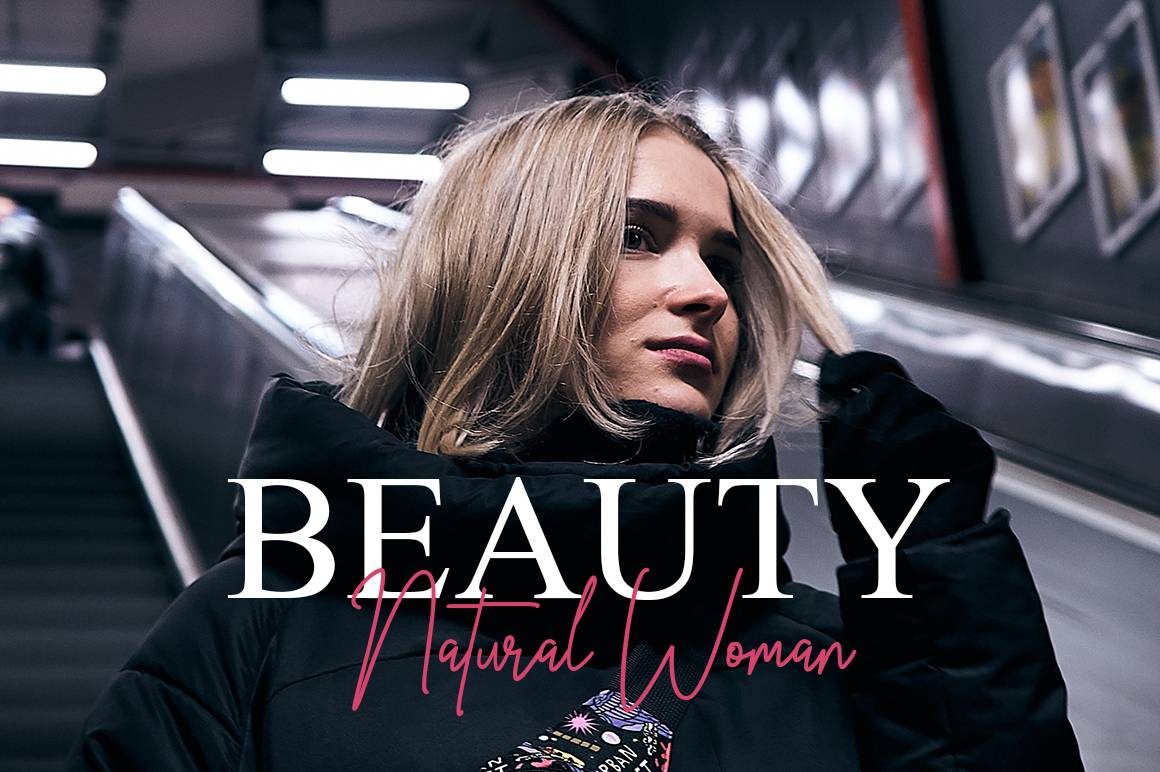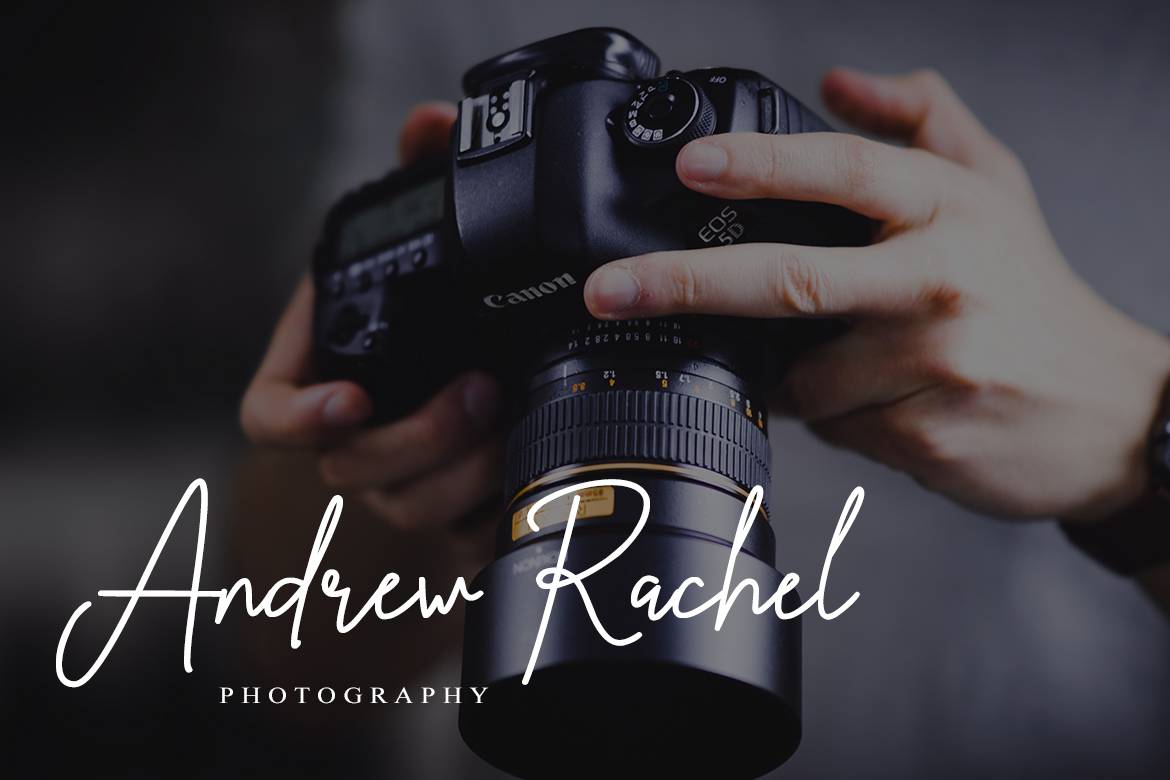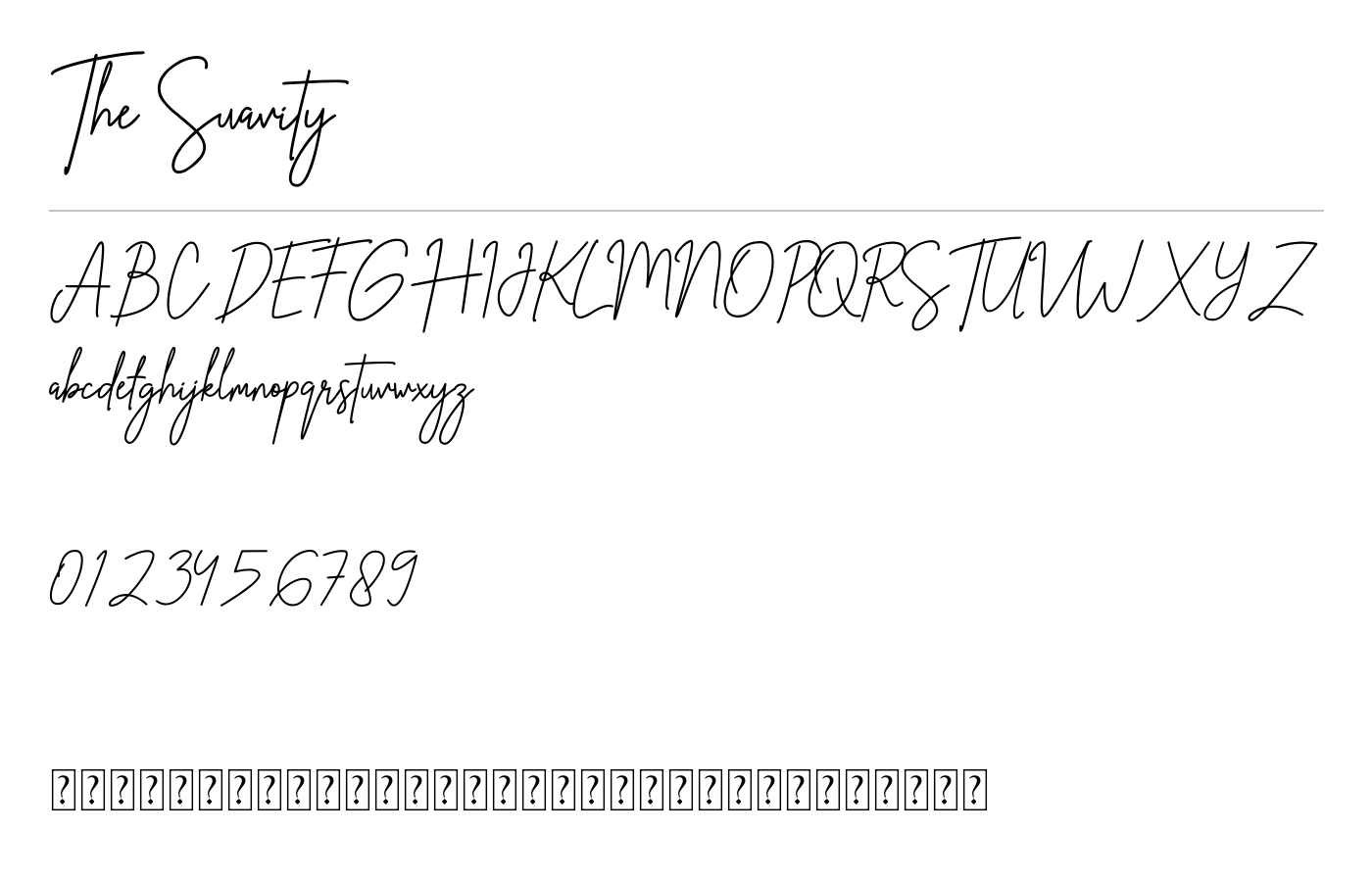
The Suavity Font is a delicate, handwritten script with a slender, elegant feel that conveys a modern and sophisticated personality. Its tall, flowing letterforms with light strokes and natural, expressive curves make it perfect for branding, invitations, and stylish editorial designs where a personal, graceful touch is desired. This font works well in contexts that call for a refined yet approachable look, especially in fashion, beauty, and luxury projects.
The Suavity Font
About The Suavity Font